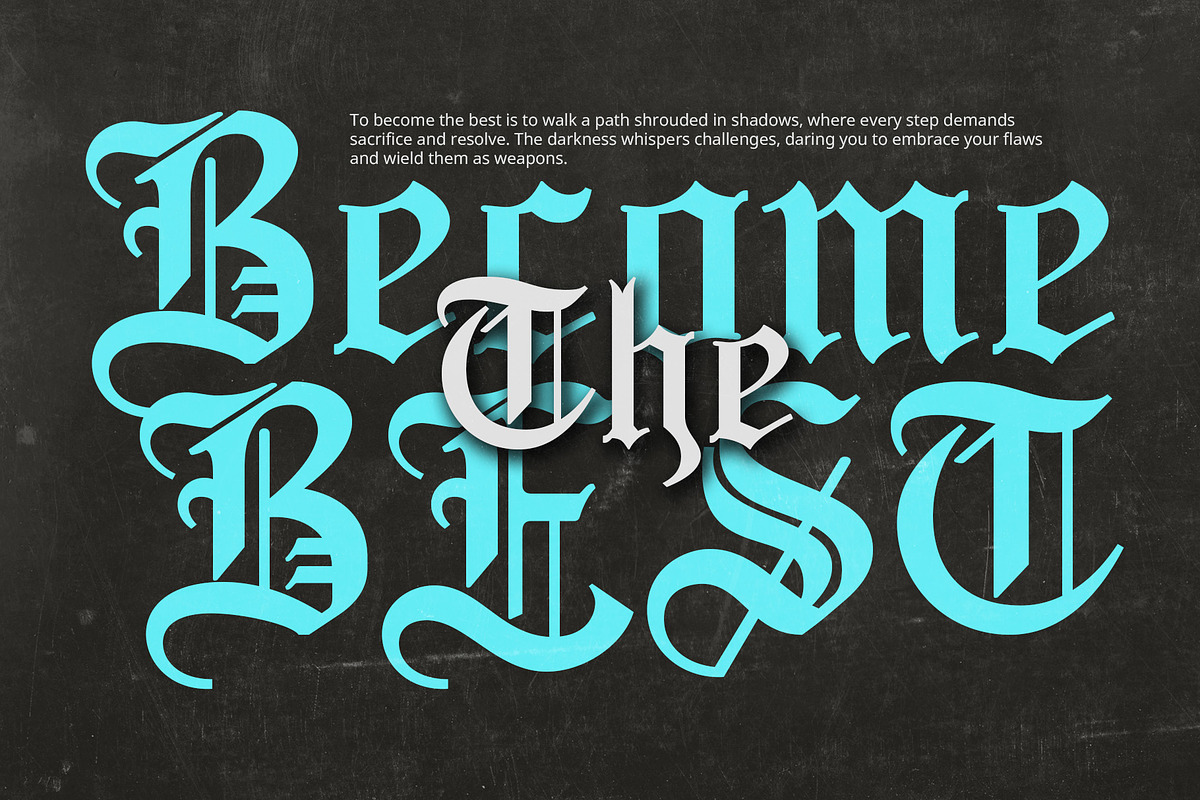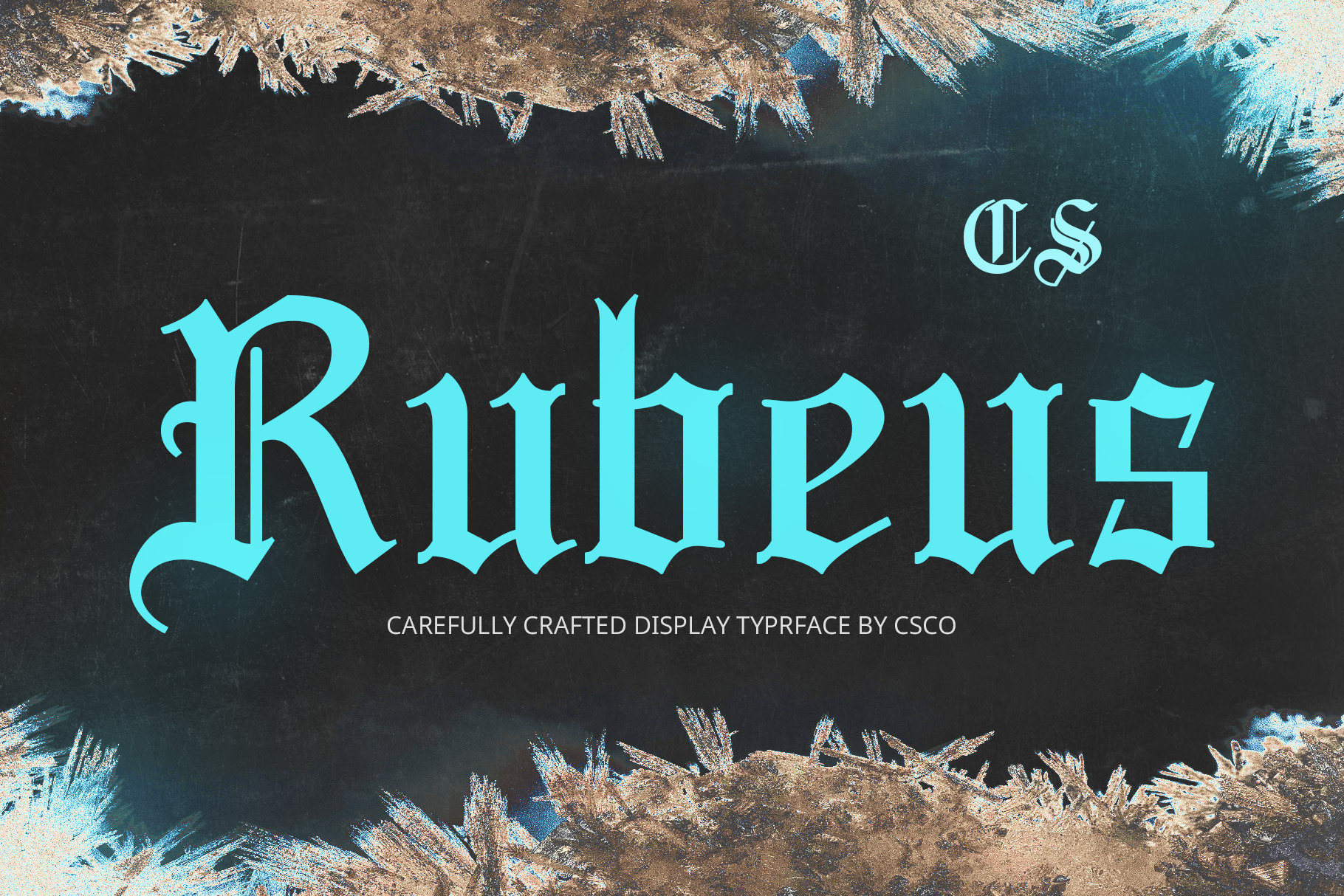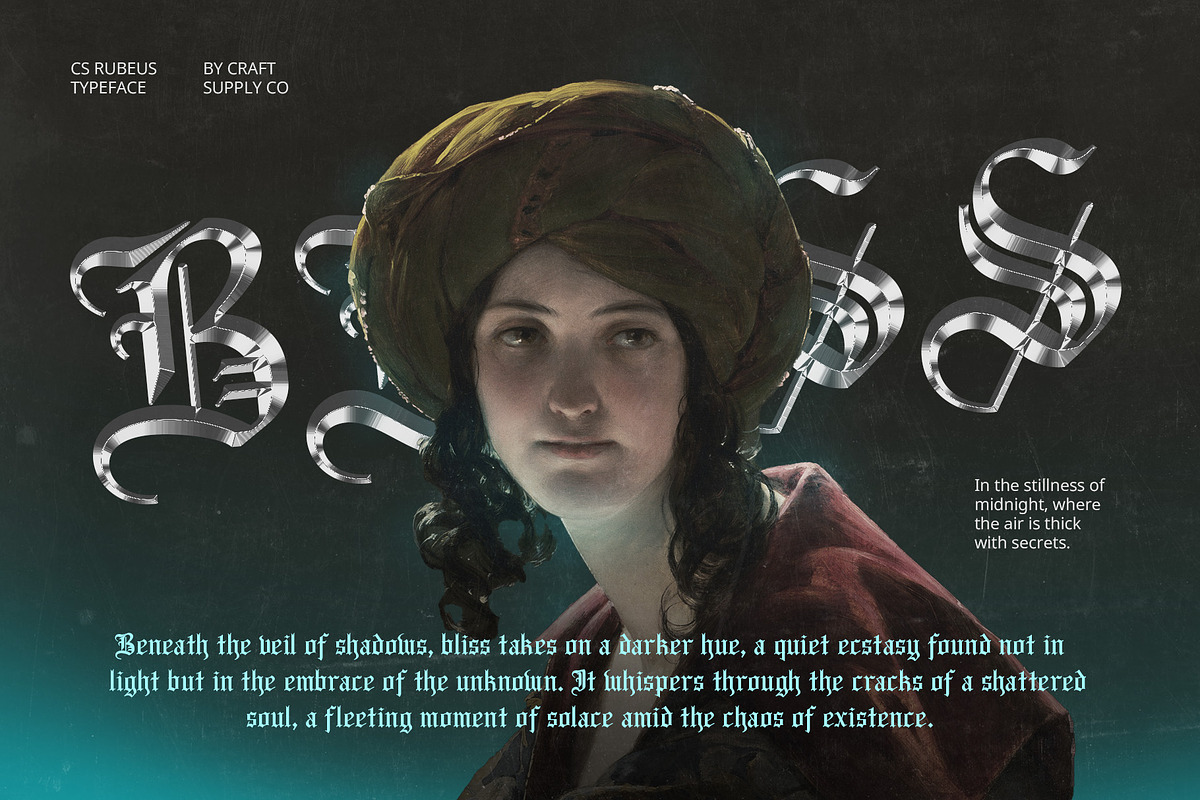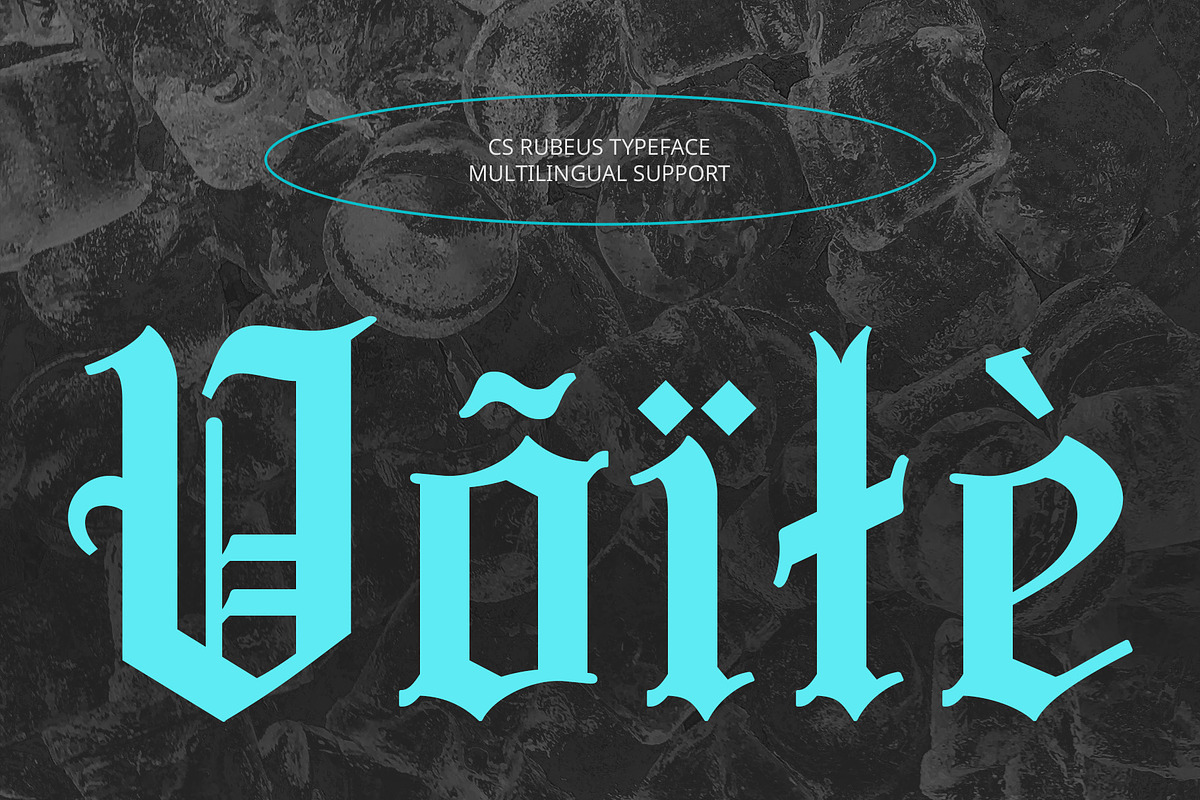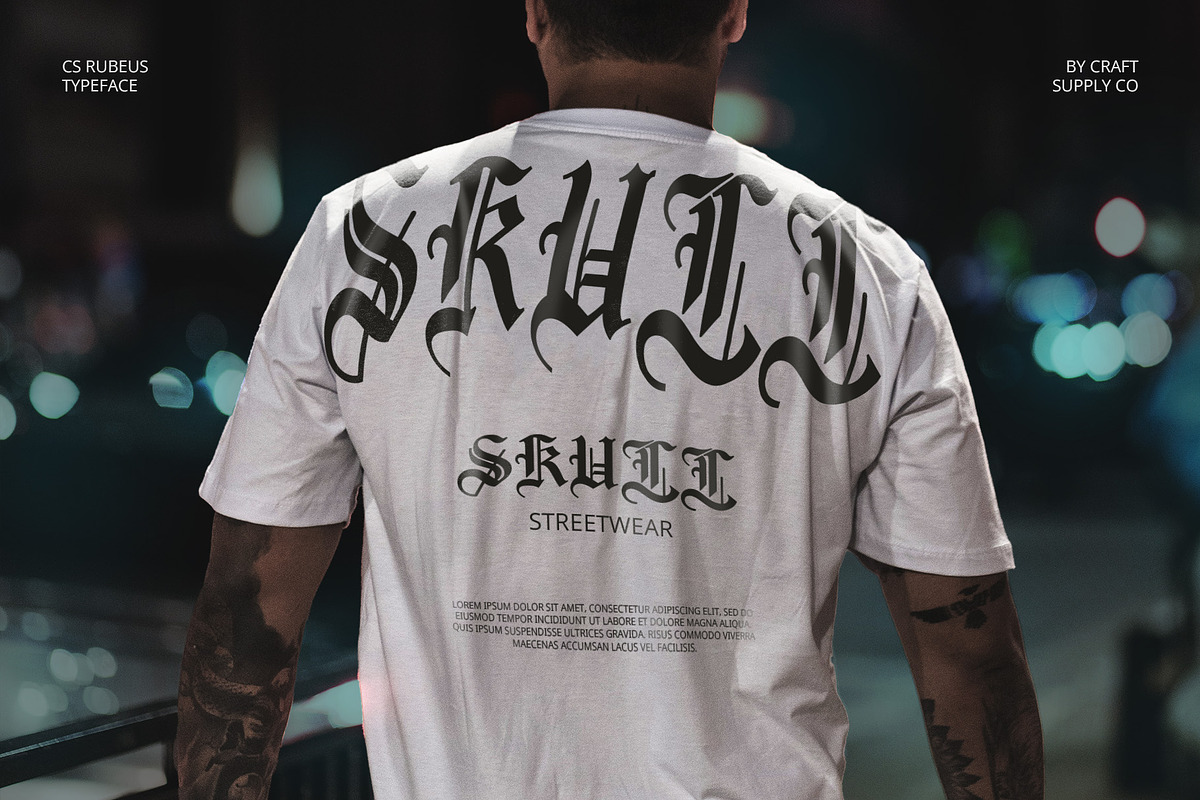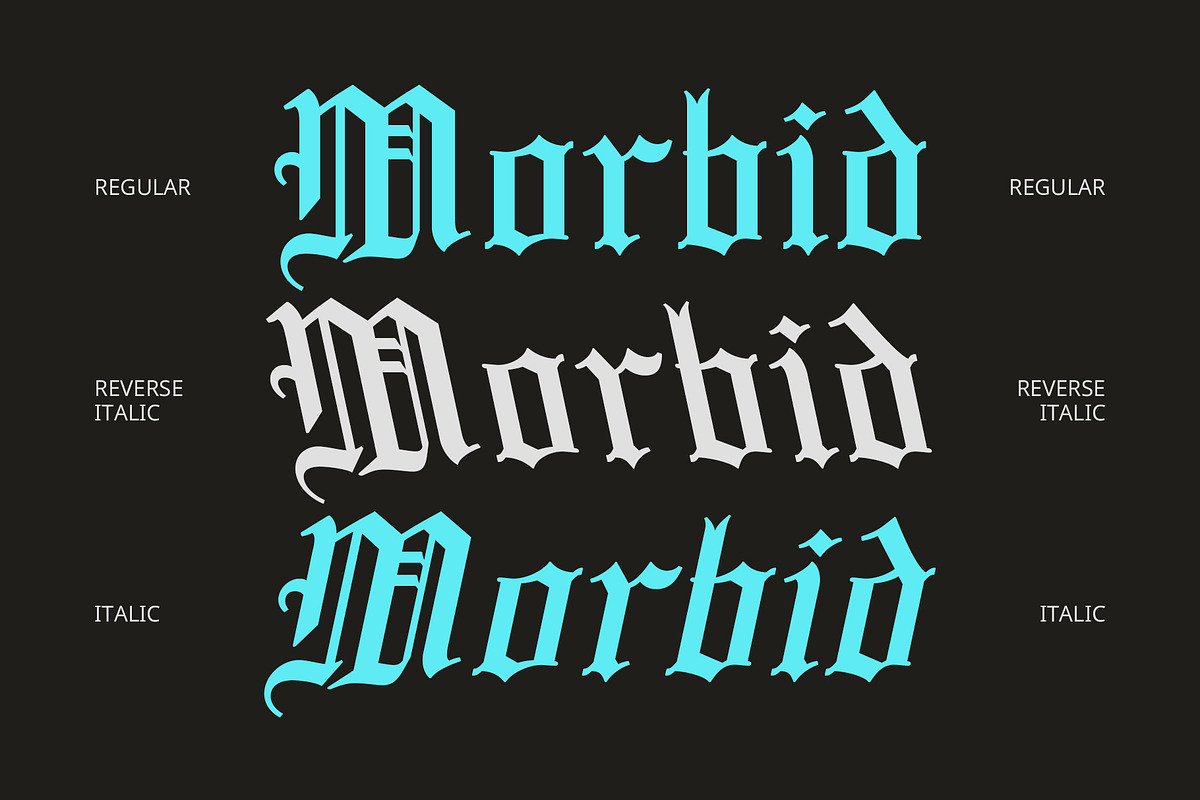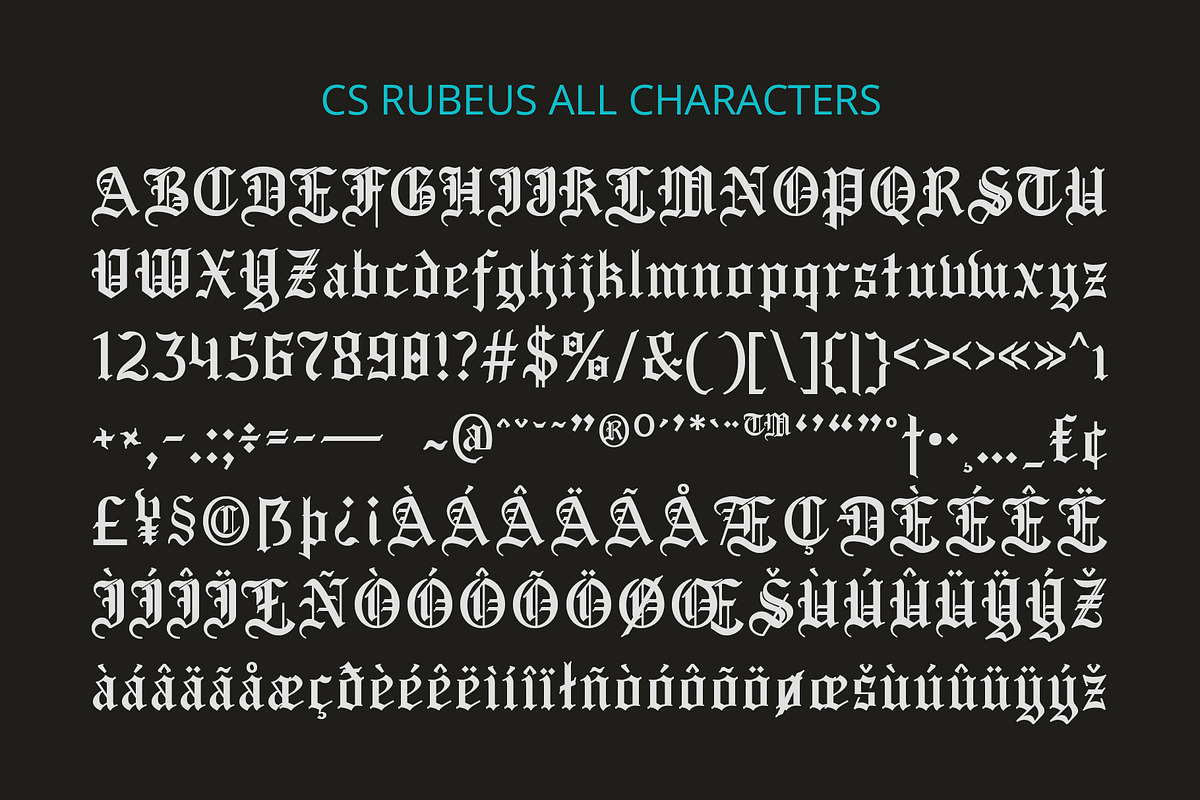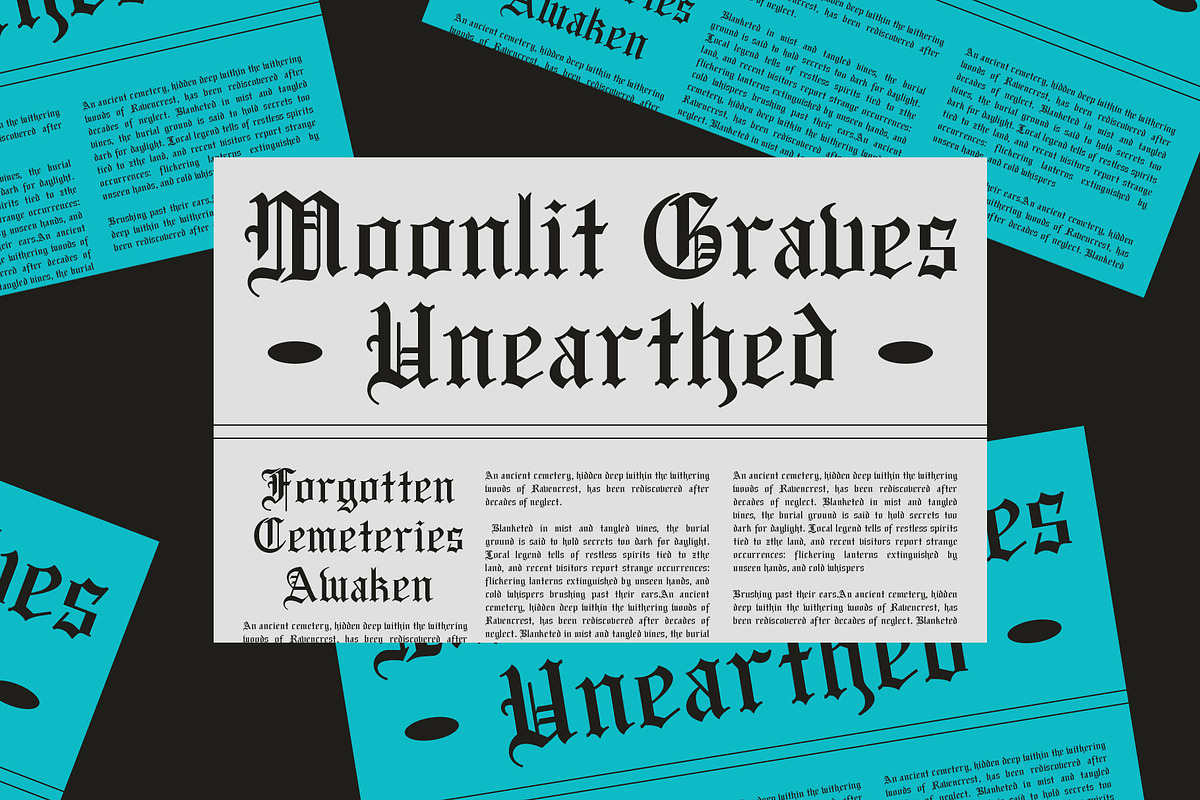
CS Rubeus – Old English Font
CS Rubeus – Old English Display Font
A Tribute to Medieval Elegance CS Rubeus is an Old English display font that captures the intricate, historic charm of medieval Blackletter styles. With its bold vertical strokes, sharp angles, and elaborate decorative details, this font echoes the grandeur of ancient manuscripts and heraldic traditions. Its dense, authoritative appearance exudes sophistication and timeless beauty, making it a standout choice for designs that aim to convey tradition and elegance.
Rich in Tradition and Ornate Detail Every letter in CS Rubeus reflects the ornate craftsmanship of its historical roots. The sharp angles and curved embellishments create a harmonious blend of formality and artistry. This unique combination of intricate details and bold structure provides an unmistakable presence, ideal for projects that seek to evoke a sense of historical richness and cultural depth.
Perfect for Gothic and Historical Themes CS Rubeus thrives in designs emphasizing tradition, exclusivity, and gothic elegance. From traditional beer logos and ceremonial documents to formal invitations and gothic-inspired decorative projects, this font adds a touch of authenticity and refinement. Its ability to command attention while retaining a sense of historical integrity makes it an exceptional choice for specialized design needs.
- CS Rubeus Regular
- CS Rubeus Italic
- CS Rubeus Reverse Italic